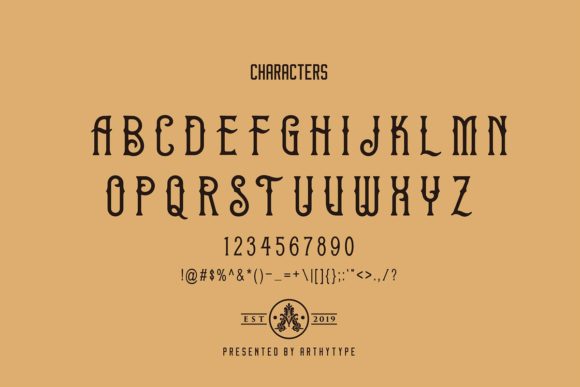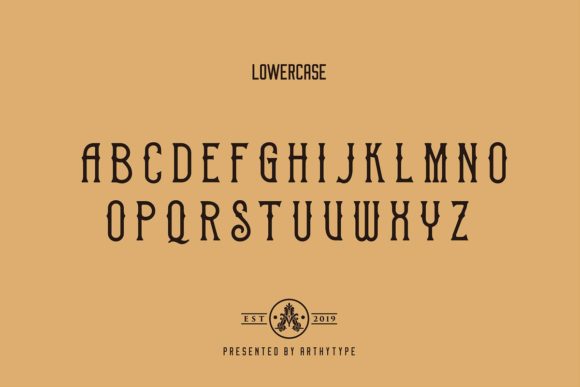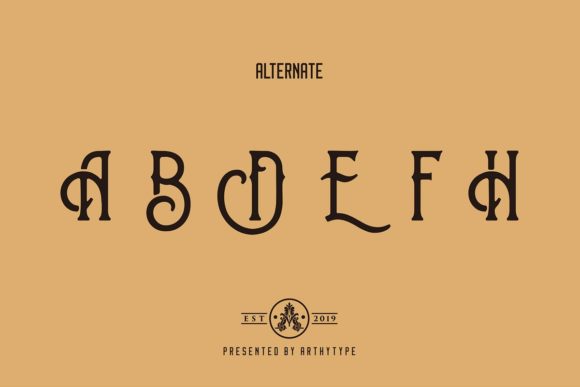
Introduction to Brave Heart Font
Brave Heart is not just another display font, it’s an extremely versatile typeface: Use it for its victorian style, vintage characters, and or even its twisted elements that perfectly works for any horror-themed projects.
Key Features of Brave Heart Font
Why Choose Brave Heart Font?
Brave Heart Font offers exceptional quality and versatility, making it a valuable addition to your design toolkit. Whether you’re creating for personal projects or commercial use, Brave Heart Font delivers professional results.